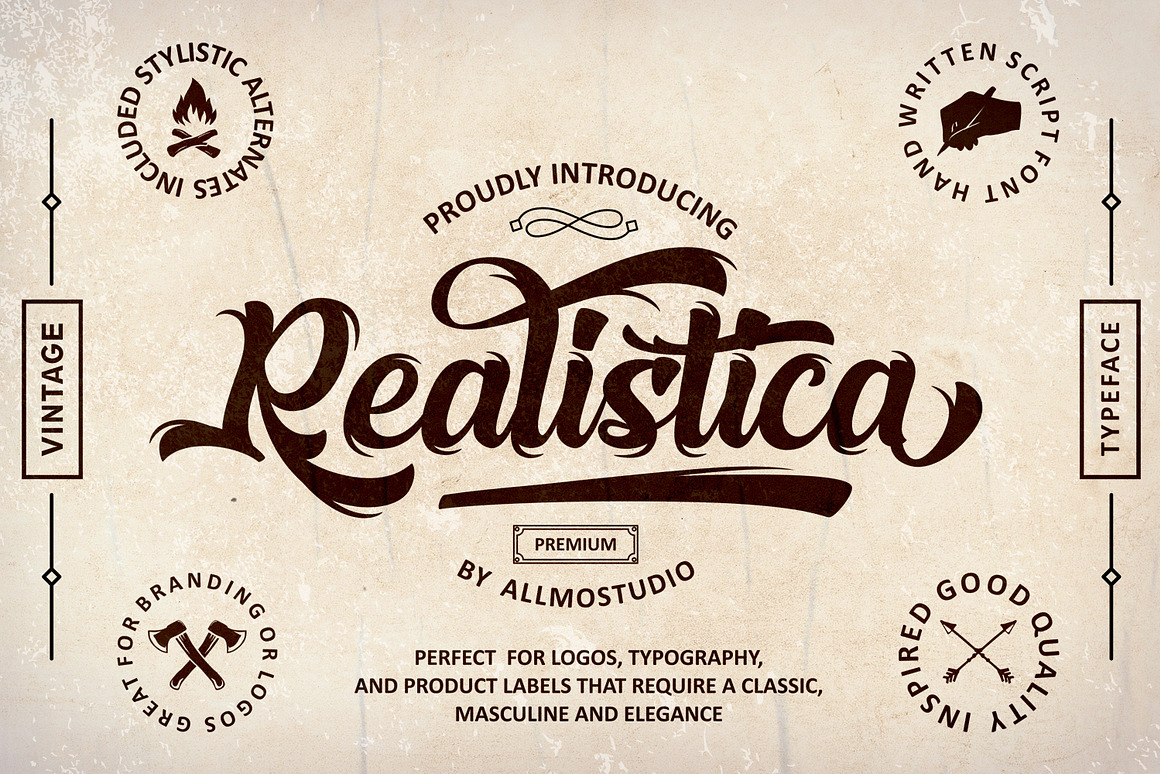
Realistica Font
Realistica Font is perfect for contemporary corporate branding, realistic advertising campaigns, authentic lifestyle marketing, honest business communications, transparent financial services, genuine product packaging, straightforward legal documentation, credible news organizations, realistic healthcare branding, and trustworthy professional services.
What makes Realistica Font exciting is its authentic credibility that embodies genuine communication and honest expression through realistically crafted letterforms. This trustworthy typeface combines contemporary clarity with authentic character, creating a personality that communicates transparency, reliability, and genuine human connection. The font's realistic appeal and honest aesthetics make it perfect for brands seeking to establish authentic relationships with audiences who value transparency, honesty, and straightforward communication in today's skeptical marketplace.
The Realistica Font family includes Regular, Bold, Light, Medium, Honest, Transparent, Condensed, and Authentic variants. Each weight maintains the font's realistic character while providing comprehensive typographic flexibility for credible brand identity systems and authentic design applications across diverse professional platforms.
Whether you're developing credible brand identities, creating authentic marketing materials, designing transparent business documentation, or building honest advertising campaigns, Realistica Font delivers unmatched authenticity and realistic appeal. Its genuine presence makes it perfect for healthcare organizations, financial institutions, legal practices, and professional services seeking authentic representation.
The font's balanced proportions and honest details create a trustworthy reading experience that builds confidence and establishes genuine connections with audiences seeking authentic communication. Each letterform has been carefully crafted to convey reliability, transparency, and professional integrity that resonates with audiences valuing honest business practices.
This versatile typeface excels in professional environments, offering designers the authenticity needed for comprehensive credible brand communication strategies. The extensive character set includes realistic alternates, honest ligatures, and transparent symbols for professional market positioning and authentic brand storytelling.
Embrace the power of authentic design that builds trust and celebrates genuine professional relationships.